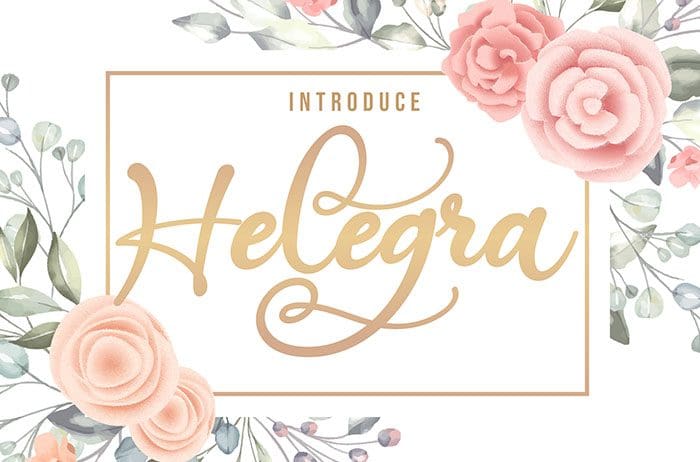
Helegra Script Font
Helegra is a beautiful script font with a summery feel. Add energy and life to your design project with this charming font. Thanks to Vunira Studio for sharing this font! Take a look at this portfolio for more of his stunning fonts.